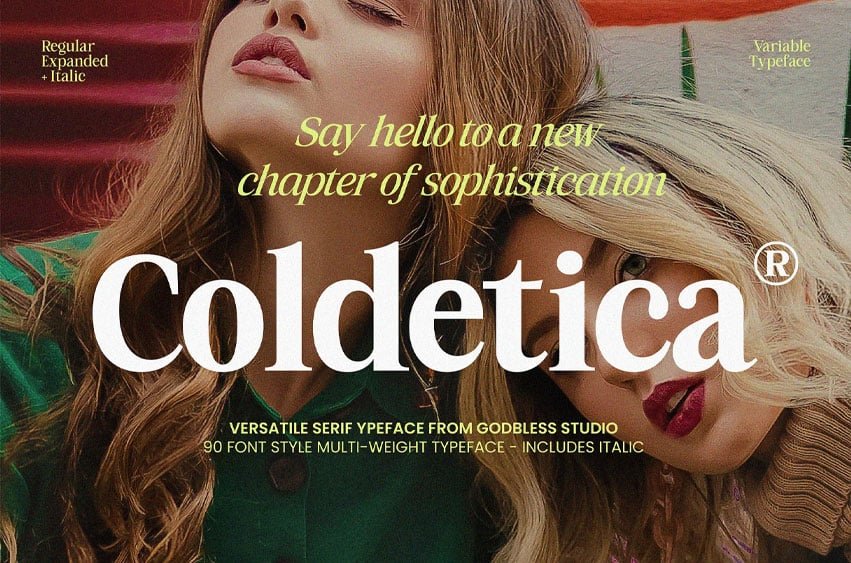
Coldetica Font
Coldetica Font Meet the Variable Serif Family — where elegance meets bold personality. Crafted for designers who blur the line between classic and contemporary, this collection includes 45 upright and 45 italic fonts, plus two variable files that give you complete control over every nuance.
Alongside its refined proportions, the family also features an expanded style, giving you extra freedom to explore wider layouts and stronger visual statements.
Packed with stylistic alternates, discretionary ligatures, and advanced OpenType features, this font family adapts beautifully to anything—from luxury branding and editorial headlines to expressive modern visuals.
It’s elegant, flexible, and ready to bring attitude and grace into every design.